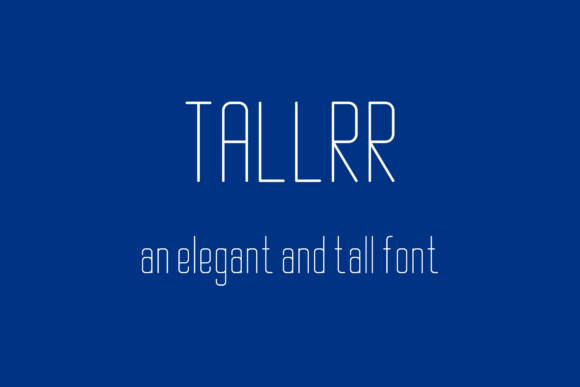
Indulge in the allure of Tallrr, a captivating sans serif font that will elevate your creations with its slender, towering letters. Every stroke exudes elegance, bestowing a touch of sophistication upon your designs.
Crafted with meticulous care by florintenica, Tallrr seamlessly adapts to a myriad of applications. Unleash your creativity and envision your web designs adorned with its sleek lines, or imagine the impact it will have on your professional business cards. The possibilities are endless, as Tallrr empowers you to add an air of exclusivity to every project.
Immerse yourself in the world of string art, where Tallrr shines as the perfect font choice. Its thin, elongated letters gracefully intertwine, creating intricate masterpieces that captivate the eye. The delicate curves and sharp angles harmoniously complement the essence of string art, accentuating its mesmerizing beauty.
Tallrr is more than just a font; it's an artistic expression that breathes life into your designs. Its versatility extends beyond the digital realm, as it seamlessly translates to physical creations. Envision the possibilities of custom-made jewelry, adorned with Tallrr's graceful letters, or the impact it will have on personalized home décor, adding a touch of elegance to your living spaces.
Embrace the allure of Tallrr and unlock a world of creative possibilities. Its captivating presence and versatility will empower you to transform your designs into captivating works of art.